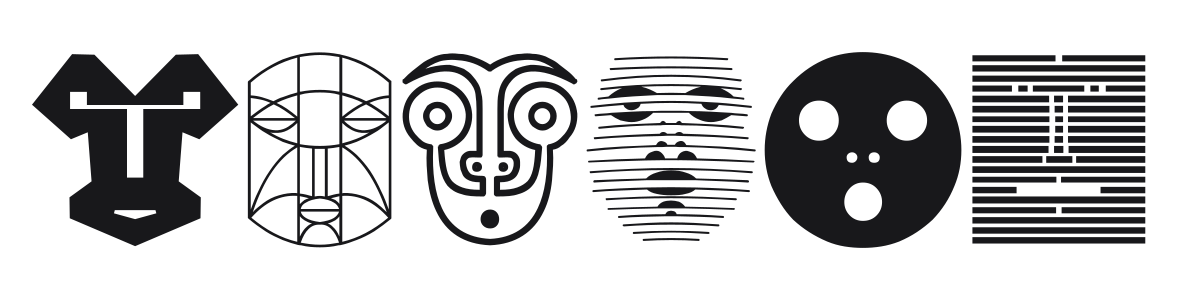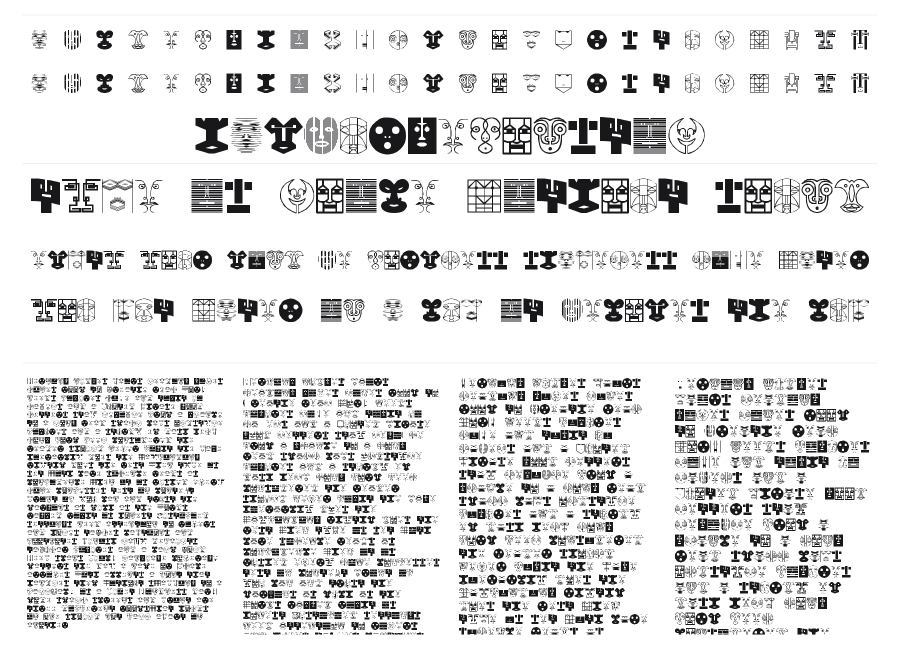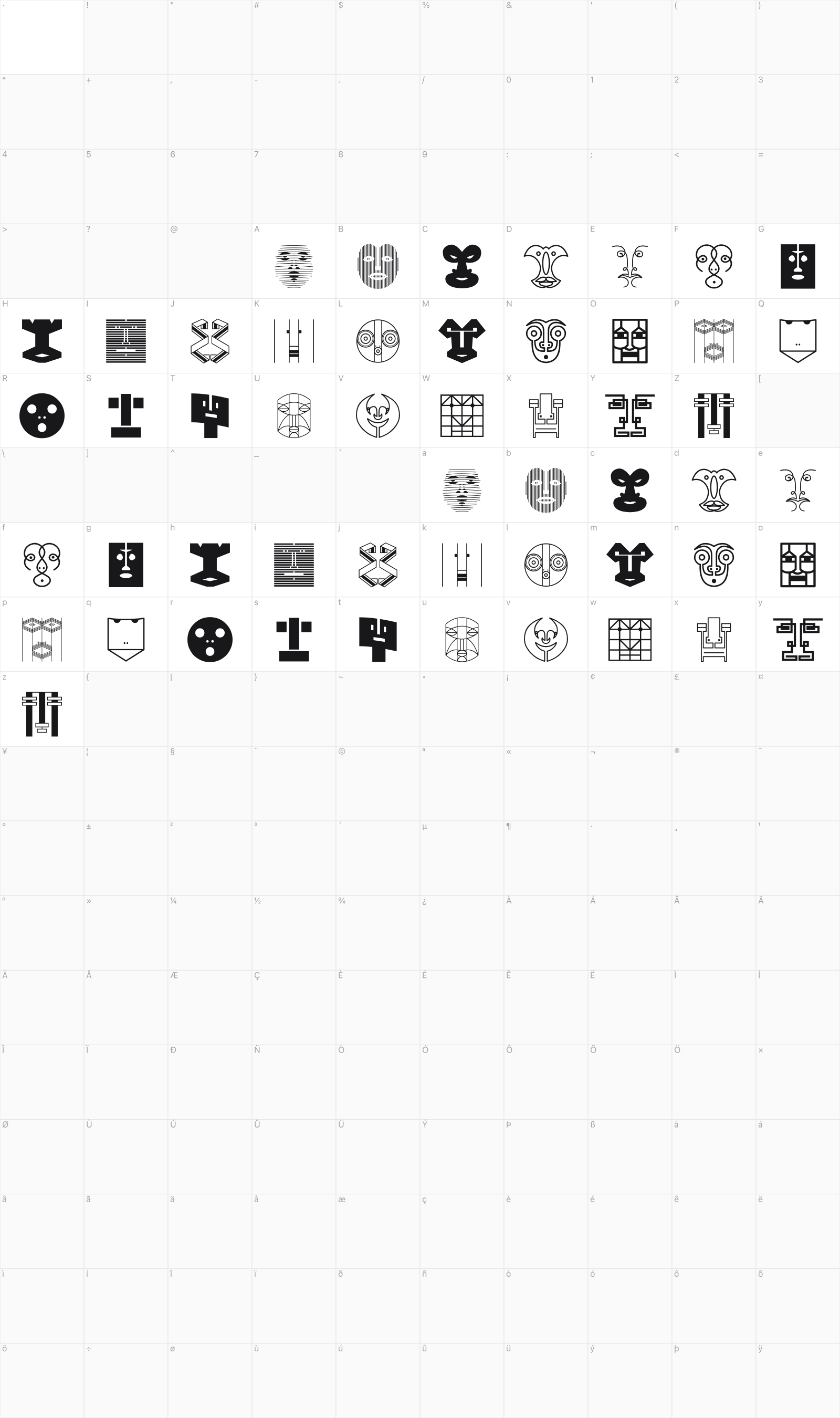
Munari
Munari is a dingbat font built from face and mask drawings inspired by Bruno Munari's 1966 book 'Artista e designer,' created by Vladimir Nikolic. Each character is a distinct graphic interpretation of a human face, ranging from bold geometric silhouettes to intricate outlined constructions with hatching and fine detail. The collection reads like a visual essay on representation, influenced by mid-century Italian modernism and design-as-art thinking.